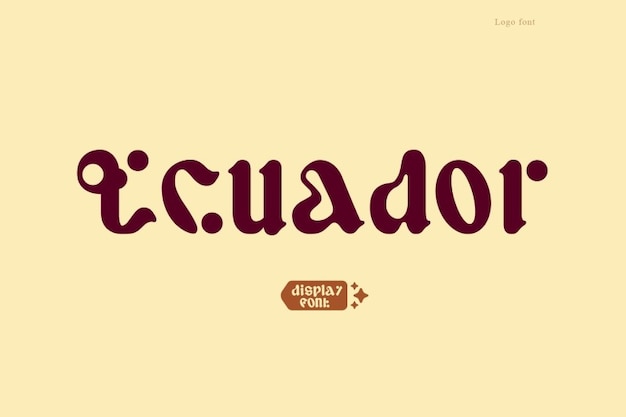
Ecuador Font
Where the psychedelic, futuristic, and grunge collide in typographic harmony. Its letters are like a cosmic journey, bending reality with avant-garde vibes. A fusion of styles, it's a glimpse into a bold tomorrow while echoing the raw energy of the past. 'Ecuador' takes your text on a mesmerizing trip through time and aesthetics, creating a visual landscape that's uniquely captivating.